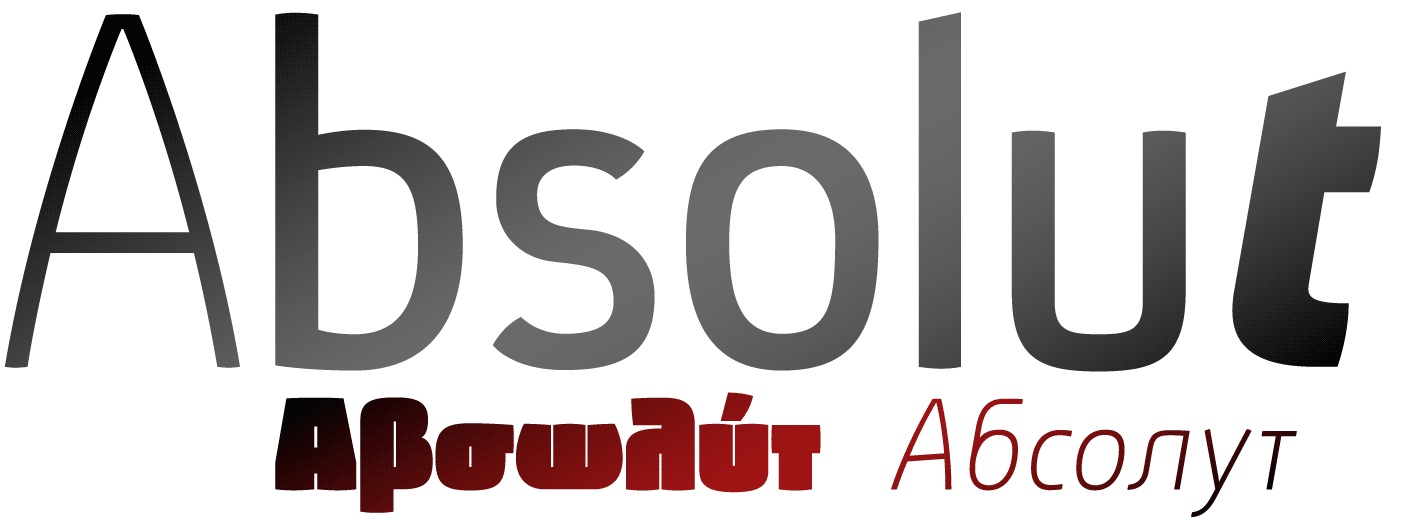
Absolut Font
The Absolut Font is an excellent choice for a wide range of projects, featuring a clean, elegant, and modern sans-serif design. Its geometric forms and balanced proportions make it incredibly versatile and highly readable, whether used for headlines, body text, or branding. This font's minimalist aesthetic is perfect for creating a sophisticated and professional look for websites, corporate identities, magazine layouts, and product packaging. The Absolut Font is also well-suited for digital applications like app interfaces and social media graphics where clarity and style are paramount.
What makes the Absolut Font so exciting is its timeless appeal. It combines a classic sans-serif structure with a fresh, contemporary feel, making it a reliable choice for any designer. Its clean lines and precise letterforms give it a sense of confidence and professionalism, ensuring that your message is delivered with authority and clarity. This font’s subtle sophistication allows it to stand out without being distracting, making it a powerful and effective tool for a wide variety of design needs.
The Absolut font family is designed for maximum flexibility, offering a range of weights and styles to help you create a strong visual hierarchy. This comprehensive family includes a full set of uppercase and lowercase letters, numbers, and punctuation, along with support for multiple languages. With its complete character set, you’ll have everything you need to create a cohesive and professional design.